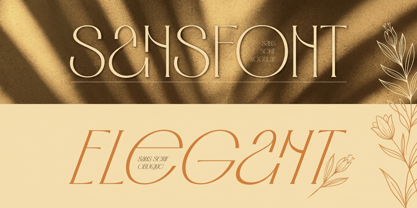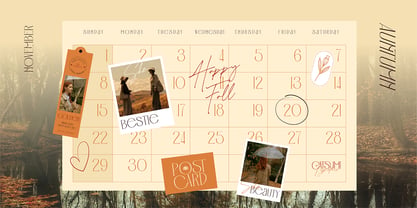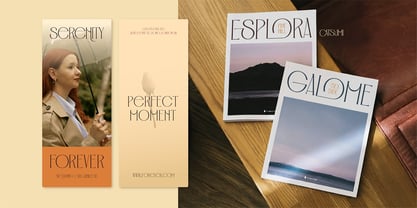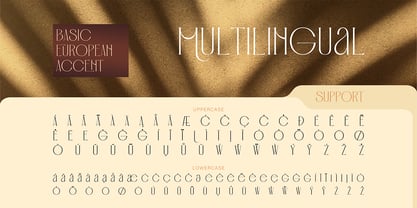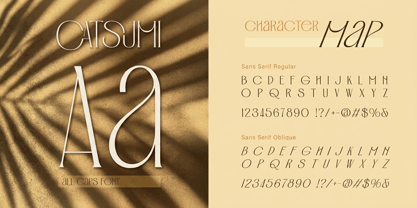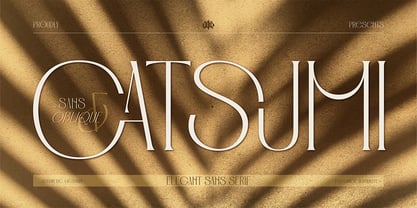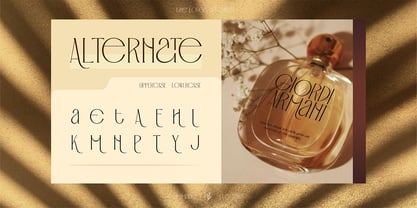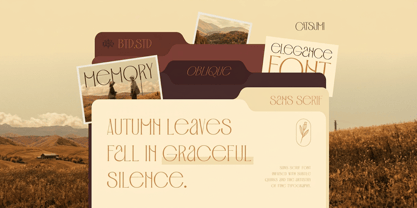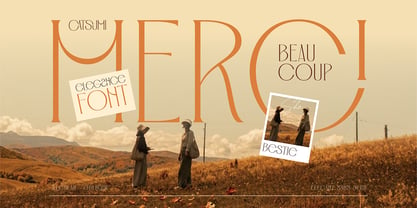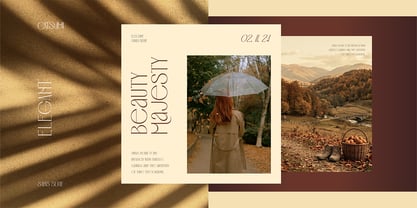
Catsumi
by Burntilldead
The Catsumi Font Family was designed by Eric Kurniawan and published by Burntilldead. Catsumi contains 2 styles and family package options. More about this family
Catsumi, a refined, high-contrast sans serif typeface. Designed with sleek vertical proportions, graceful curves, and delicate artistic flourishes, Catsumi brings a touch of modern luxury and quiet elegance to every typographic composition.
This display font comes equipped with both Regular and Oblique styles, offering versatility across high-end branding, magazine editorials, aesthetic quote posters, and premium product packaging. Catsumi lets you build custom, elevated headlines with effortless flow.
Perfect for:
• Luxury Brand Identities & Logo Design
• Fashion Magazines & Editorial Headlines
• Aesthetic Social Media Graphics & Moodboards
• High-End Cosmetics & Packaging Design
• Wedding Stationery & Event Cards